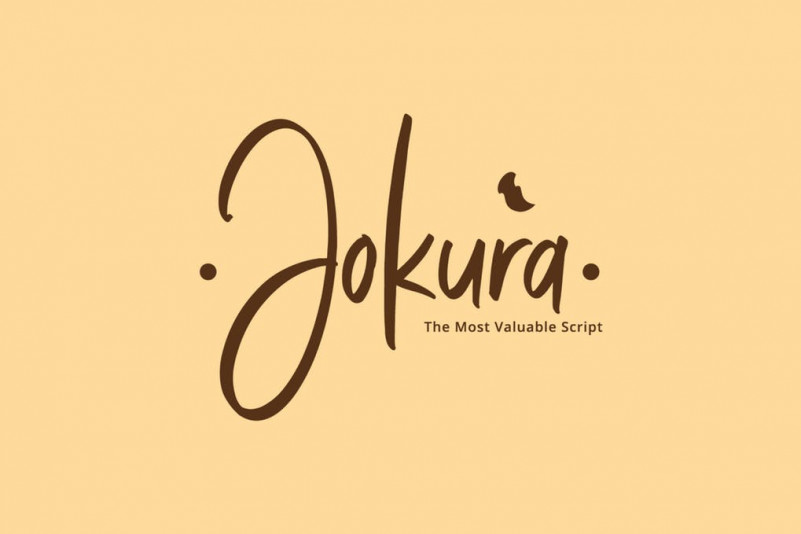
Jokura Font
Jokura is a modern handwritten script. It’s look style make it perfect for use all in your design project. Jokura makes your text stand out.
Jokura comes with basic characters. As a feature you have also the standard ligatures.